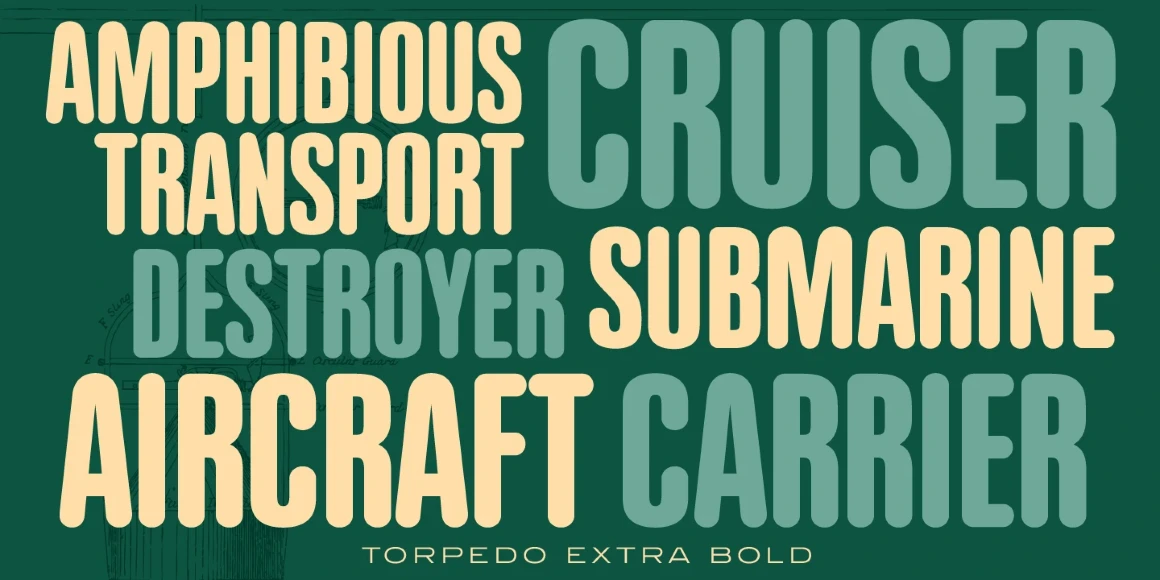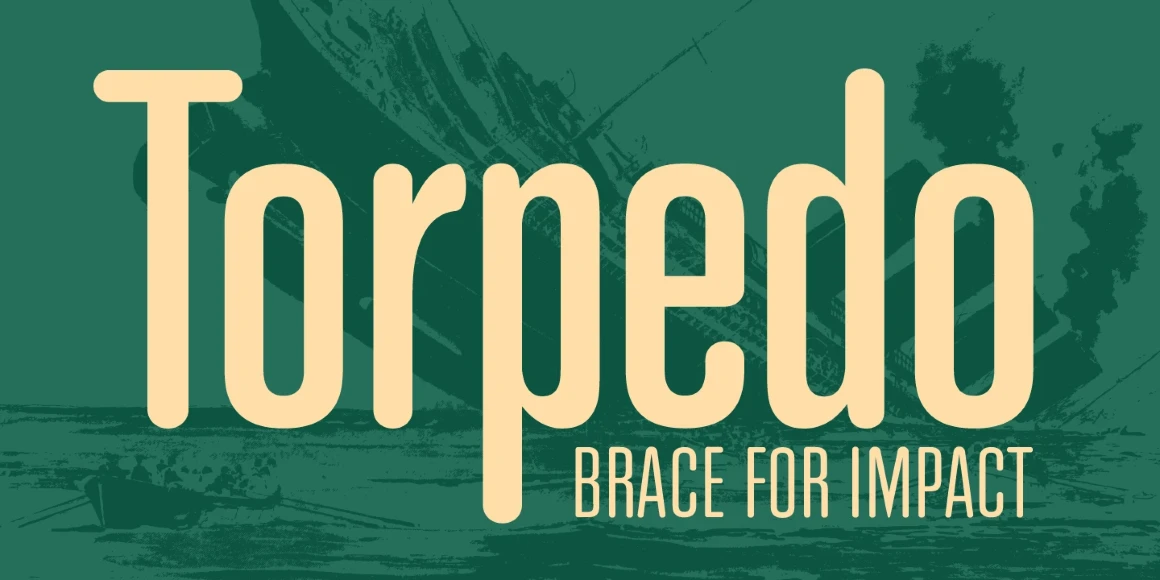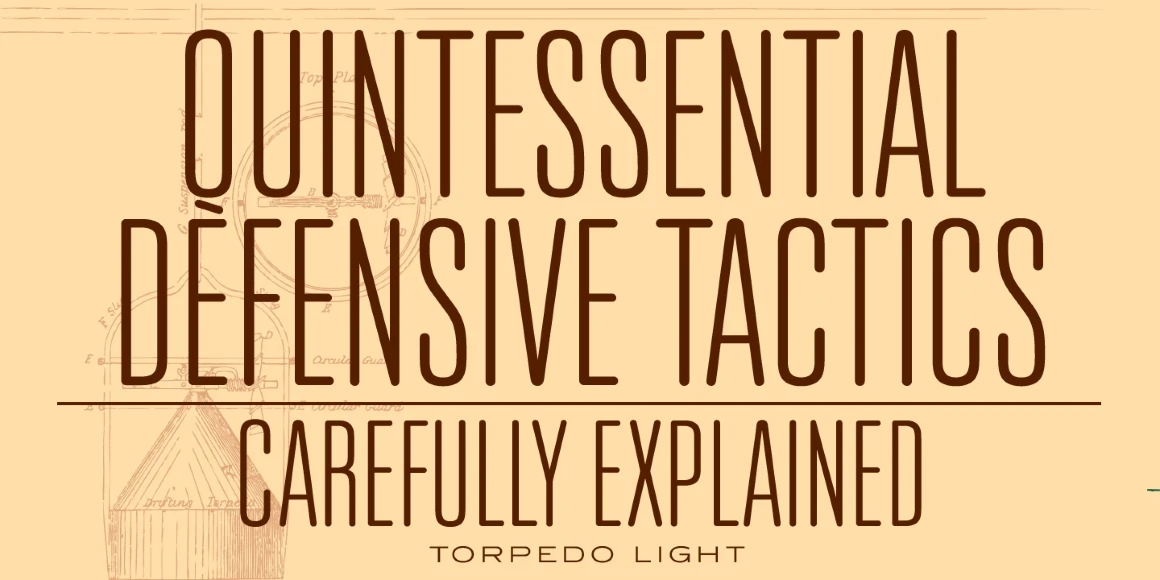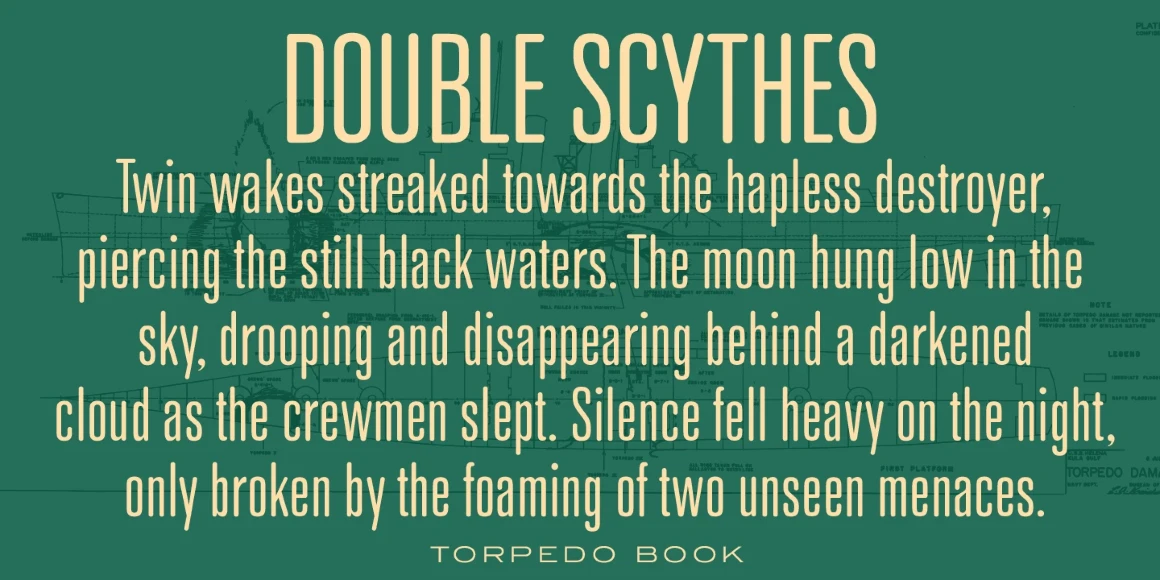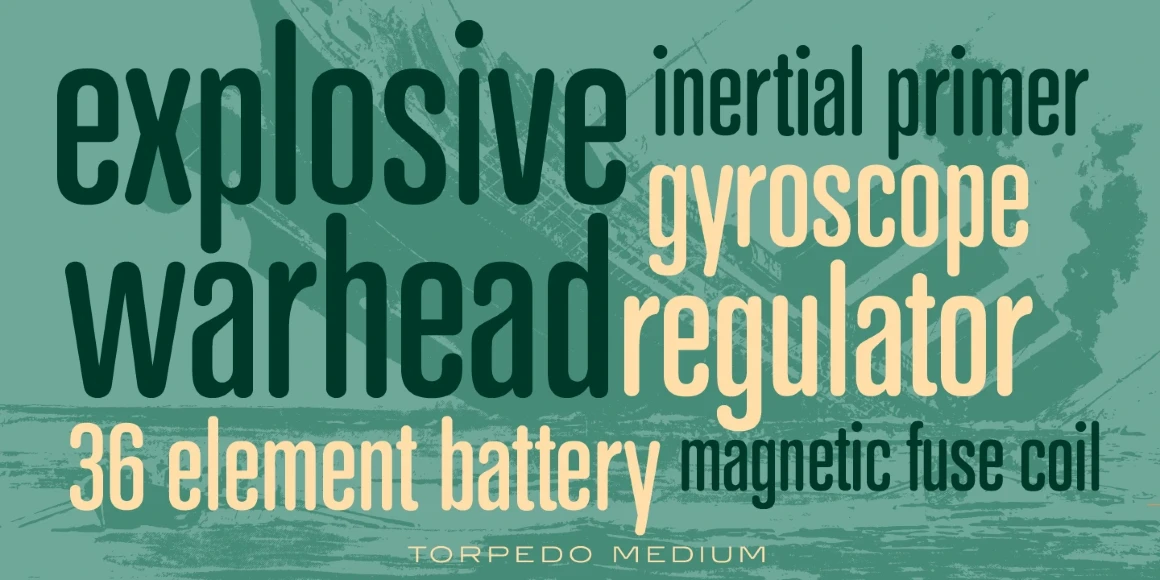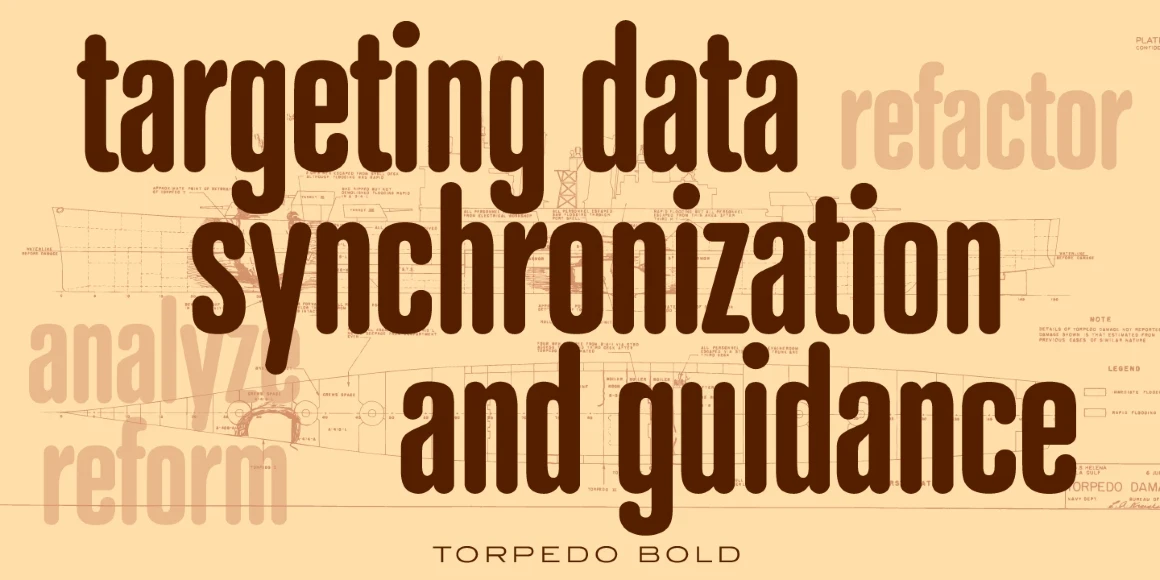
Torpedo
Torpedo Light
Torpedo Book
Torpedo Medium
Torpedo Bold
Torpedo Extra Bold
Torpedo is a five-weight rounded, compressed sans serif font family. It was designed by Steve Jackaman over a several-year period, and was released in 2017 alongside its sister typefaces Coliseum and Clydesdale. Torpedo, whose name was inspired by round torpedo warheads, is a visually sturdy font that maintains excellent legibility. Torpedo is flexible in its applications, like its violent namesake; it is explosive at large sizes, and still works efficiently at low profiles.